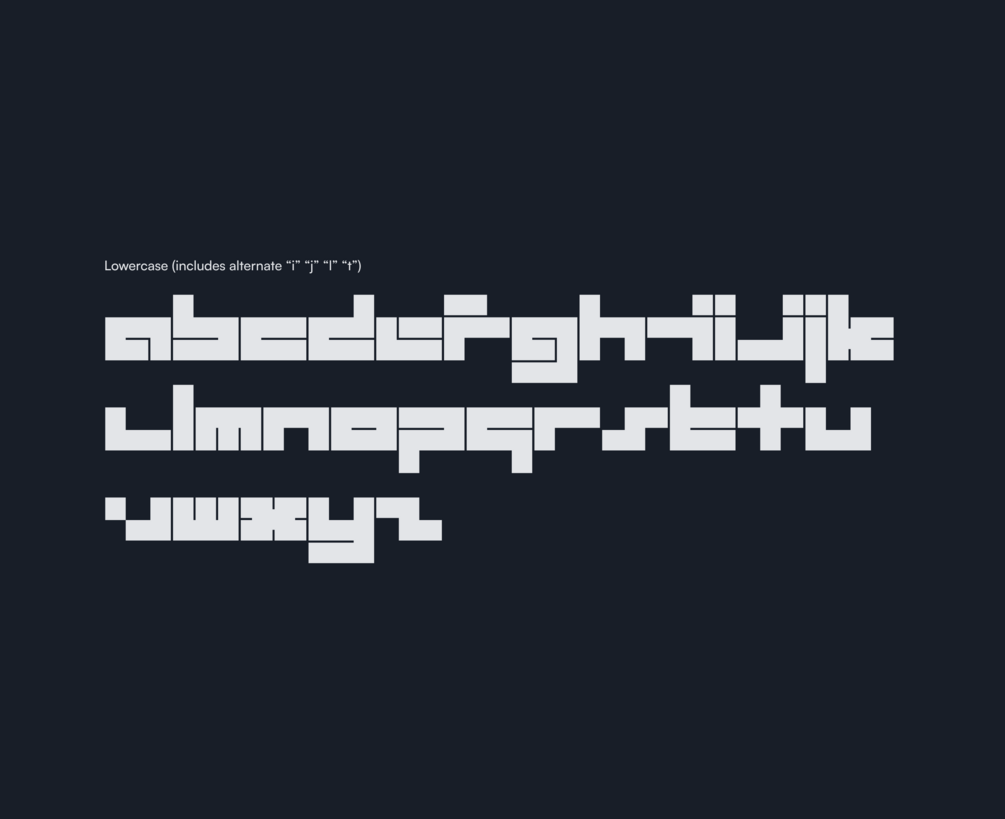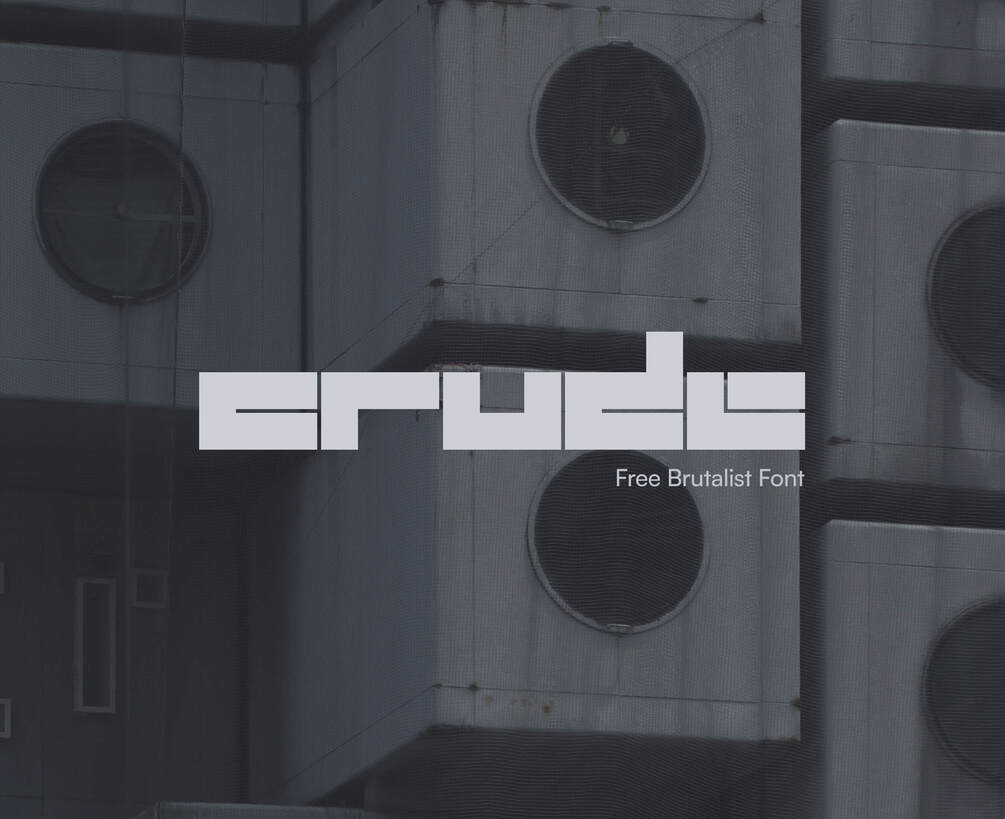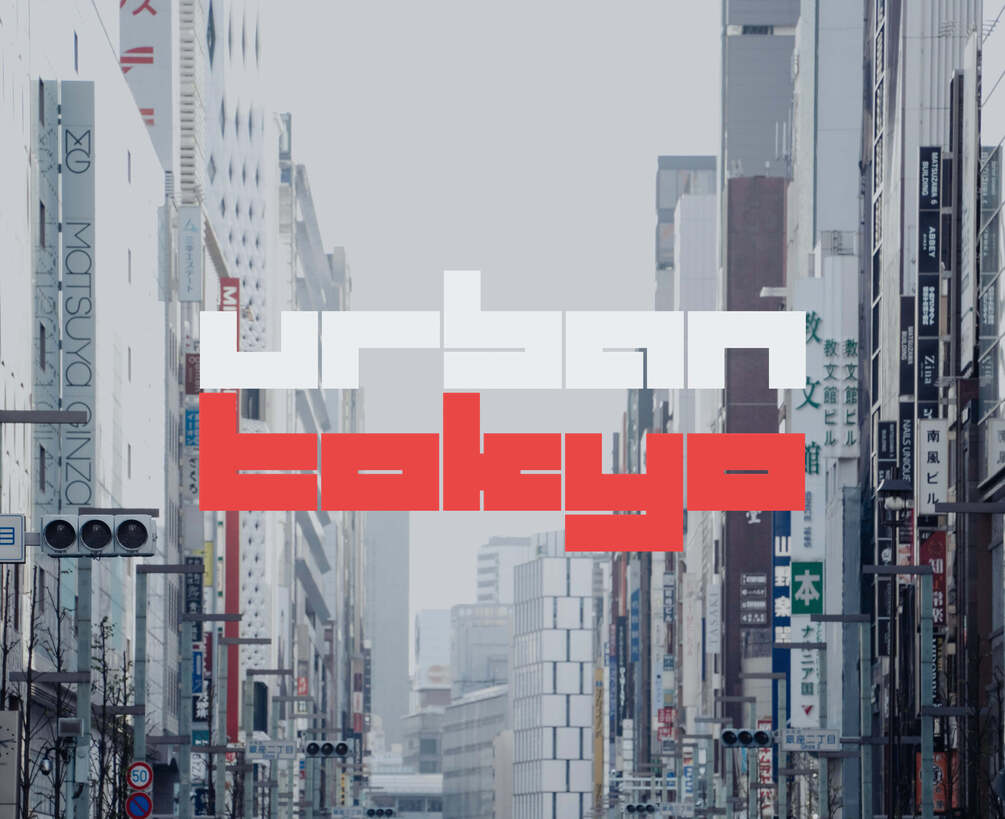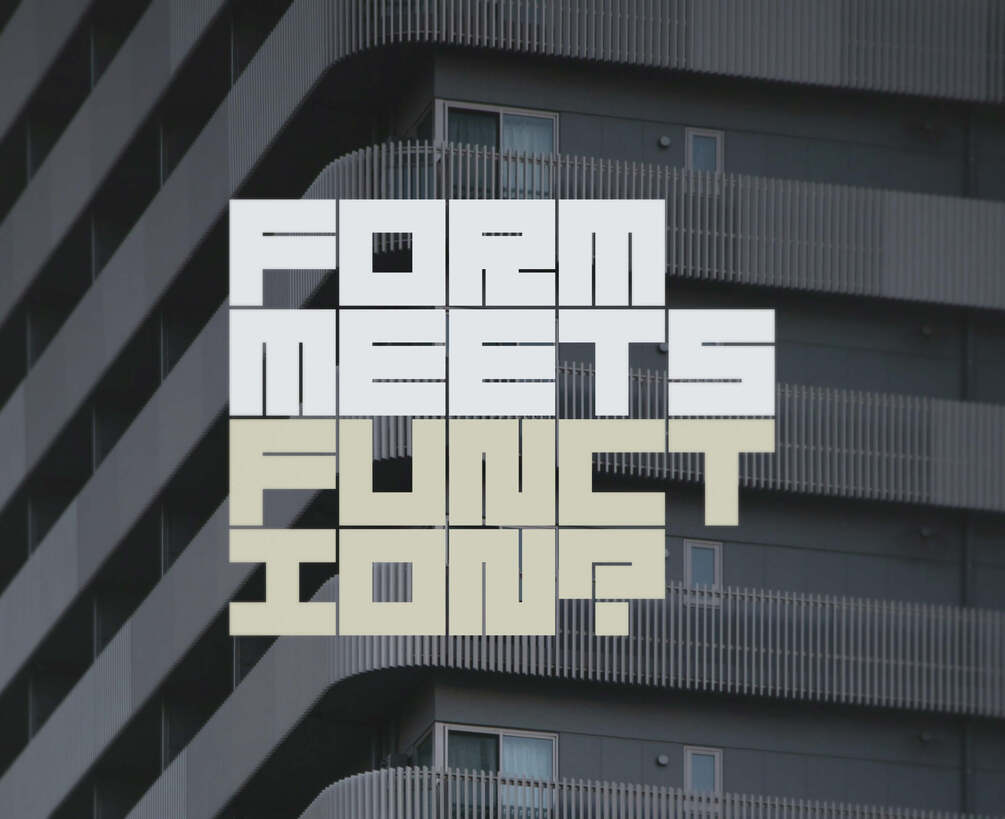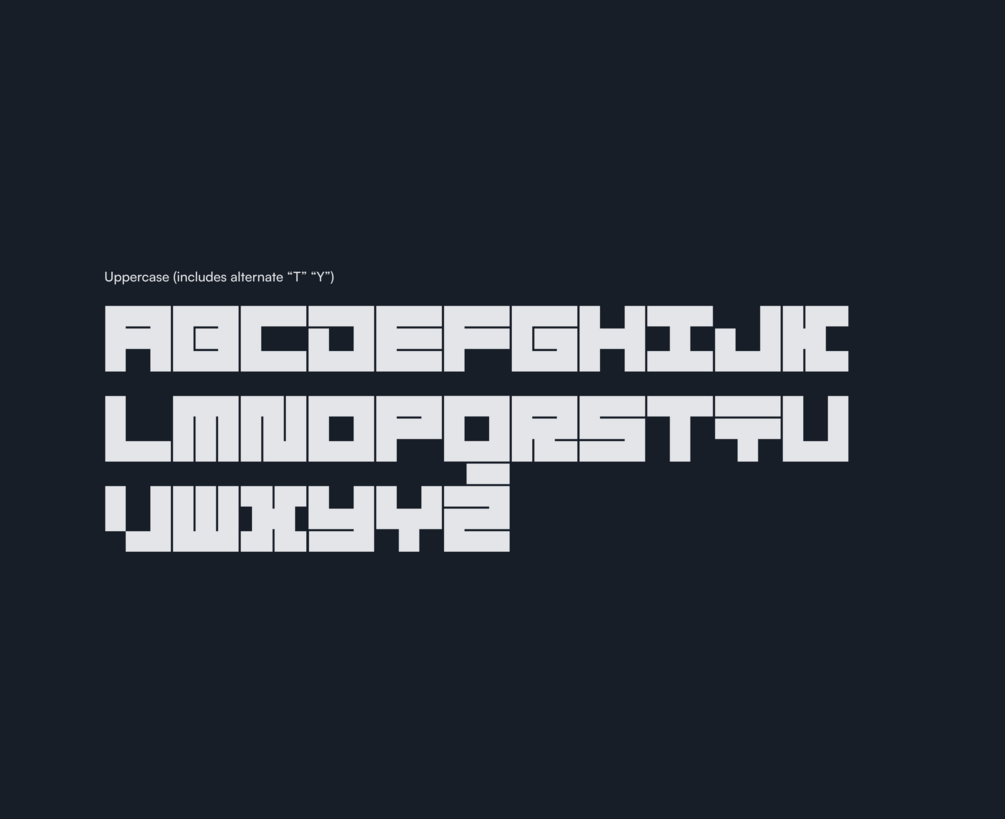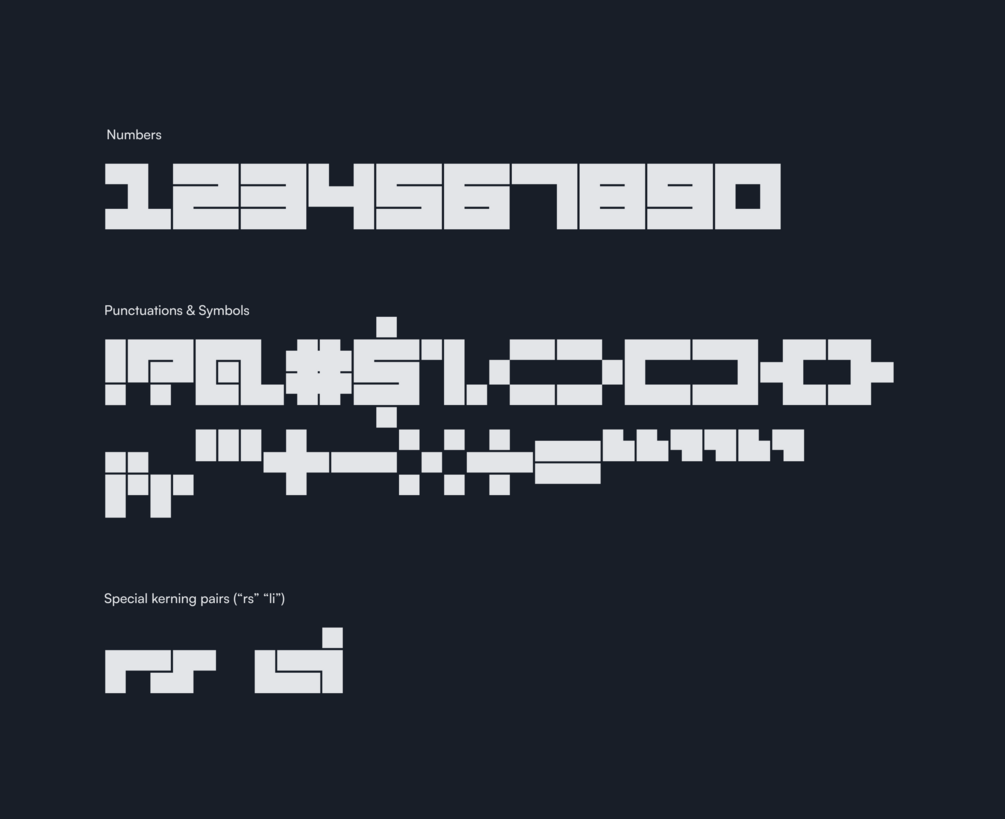
While I was creating my second font - Block, the idea of Crude emerged. It’s basically answering the question of what if I removed all the curves and construct the font simply with thick horizontal and vertical slabs, closely stacked together? The end result is a font that feels like a tetris block, and resembles the brutalist-like architecture designs. While creating this font, I also took inspiration from artworks by @daan_rietbergen on Instagram, on forming the base of the character designs.
Crude font comes with basic latin characters including uppercases, lowercases, numbers and selected punctuations. Crude is free and it’s suitable for display and as wordmark. You can download it for free for personal and commercial use.